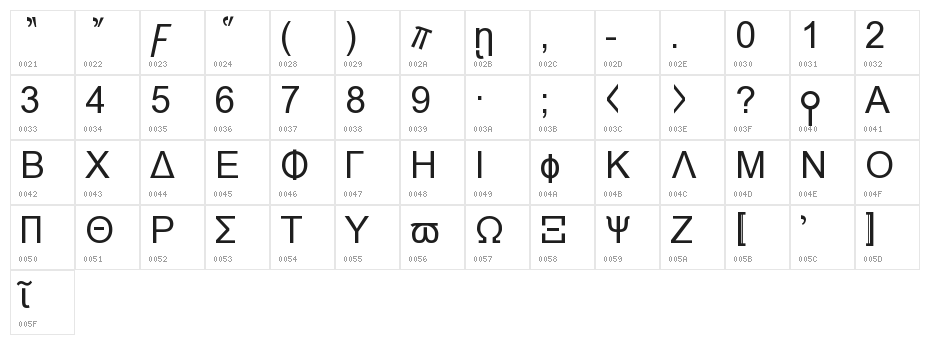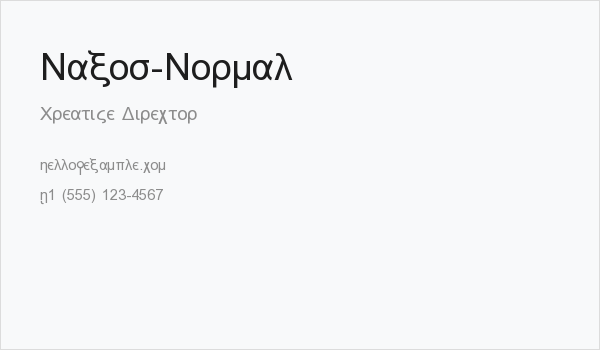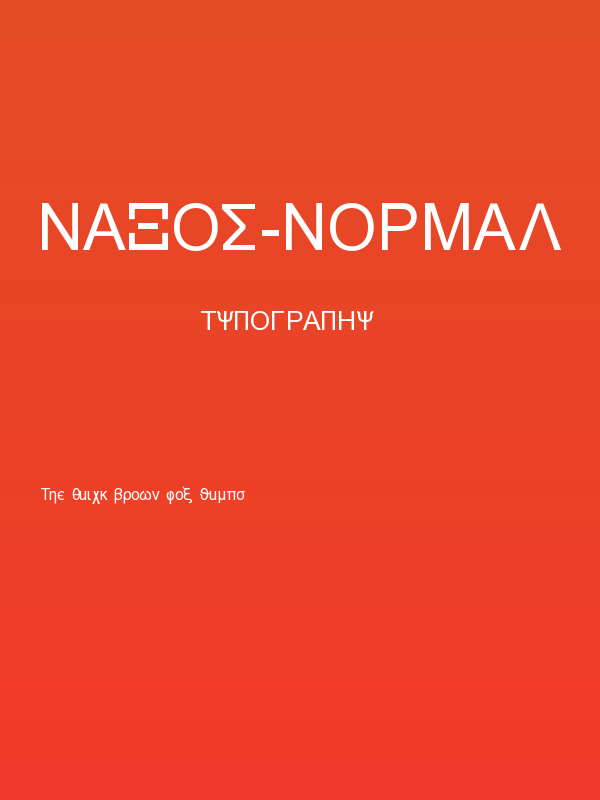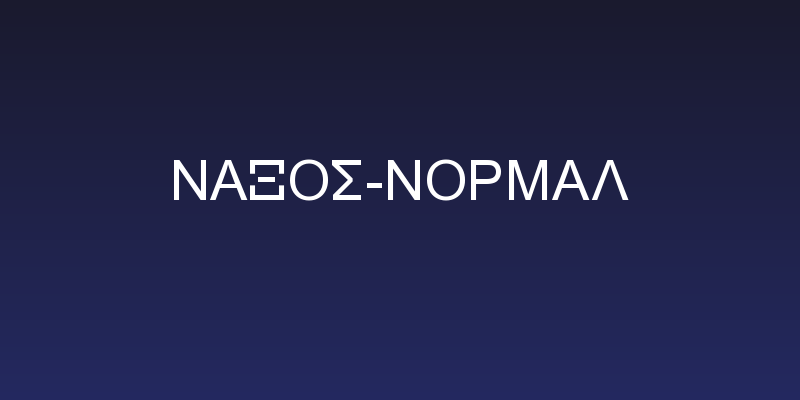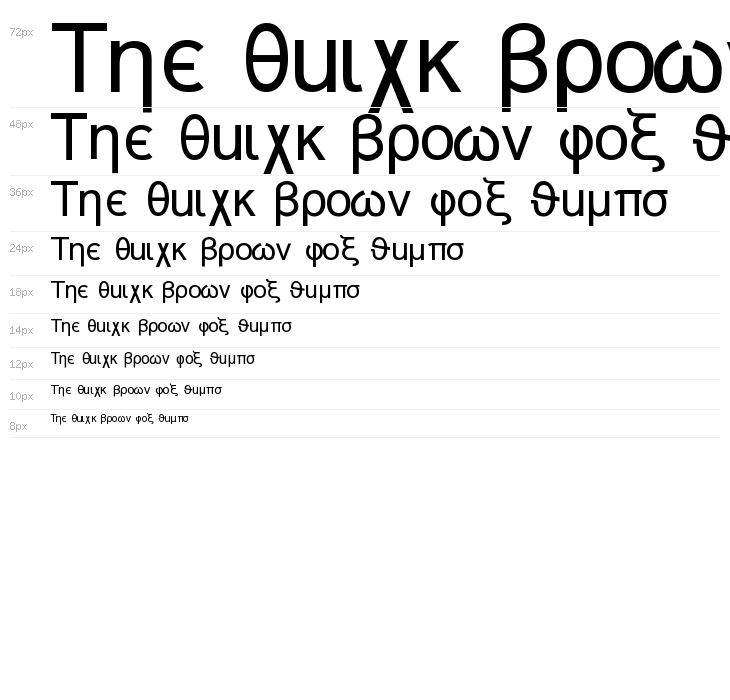
Naxos-Normal Font
Naxos-Normal Description
This font features a clean and modern sans-serif style with a geometric structure. The characters are well-balanced, with consistent stroke widths that provide a uniform appearance. The uppercase letters are bold and assertive, while the lowercase letters maintain a harmonious flow. The numerals are clear and easily distinguishable, making them suitable for various applications. Special characters are included, adding versatility to the font's use. The overall design is minimalistic, making it ideal for contemporary projects that require a sleek and professional look.